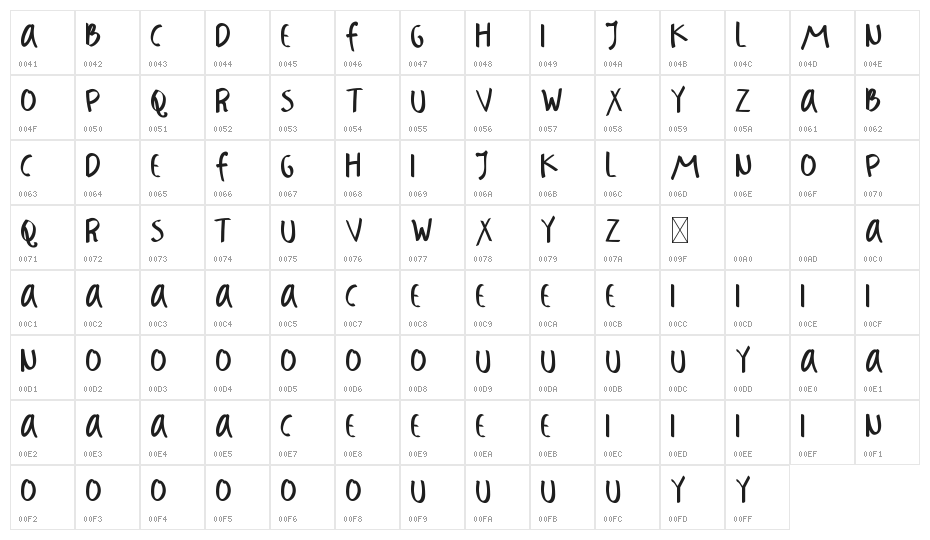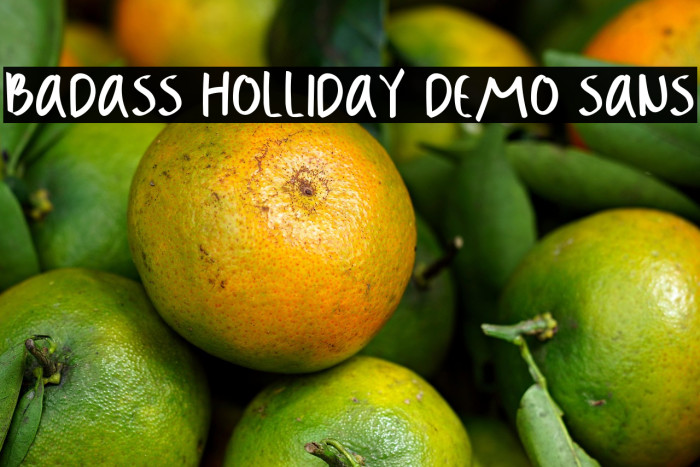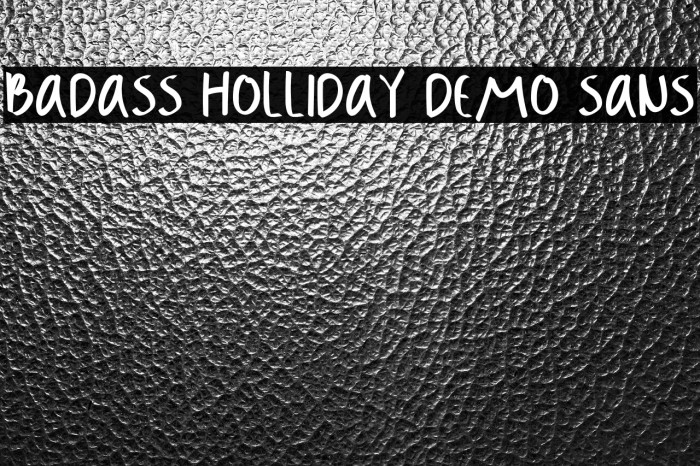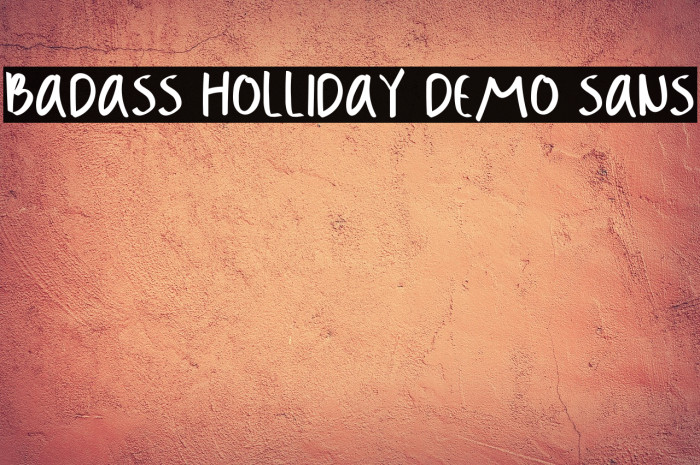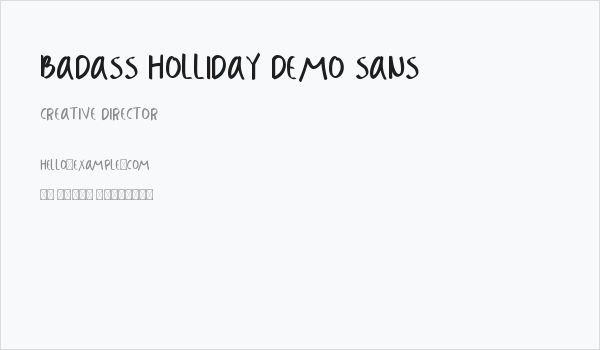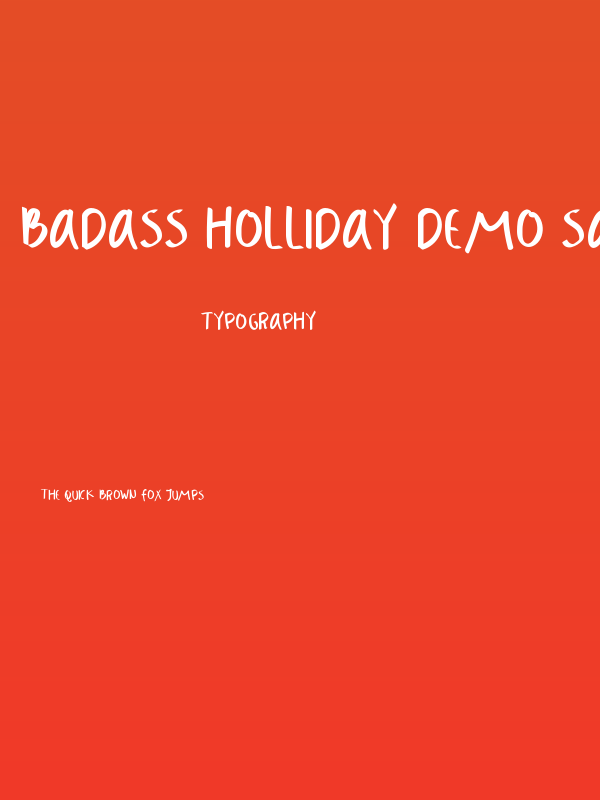
Badass Holliday Demo Sans Font
Badass Holliday Demo Sans Description
This font exhibits a bold and playful character with a handwritten style that exudes a casual and informal vibe. The letters are slightly irregular, adding a touch of whimsy and personality. The strokes are thick and consistent, providing a strong visual presence. The overall design is modern and approachable, making it suitable for projects that require a friendly and engaging tone. The font's unique style is perfect for creative applications where a sense of fun and individuality is desired.
| Overall Style | Modern, Playful |
| Proposed Projects | Ideal for greeting cards, playful branding, children's books, and social media graphics. |